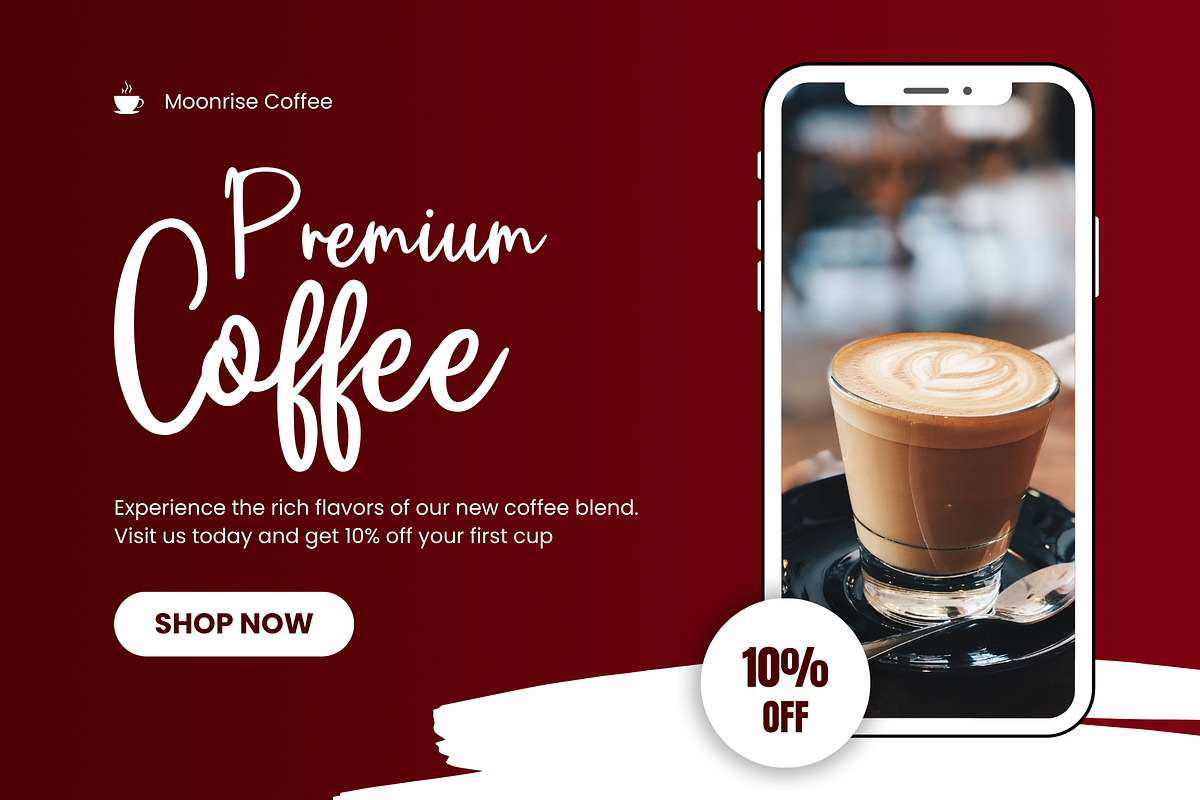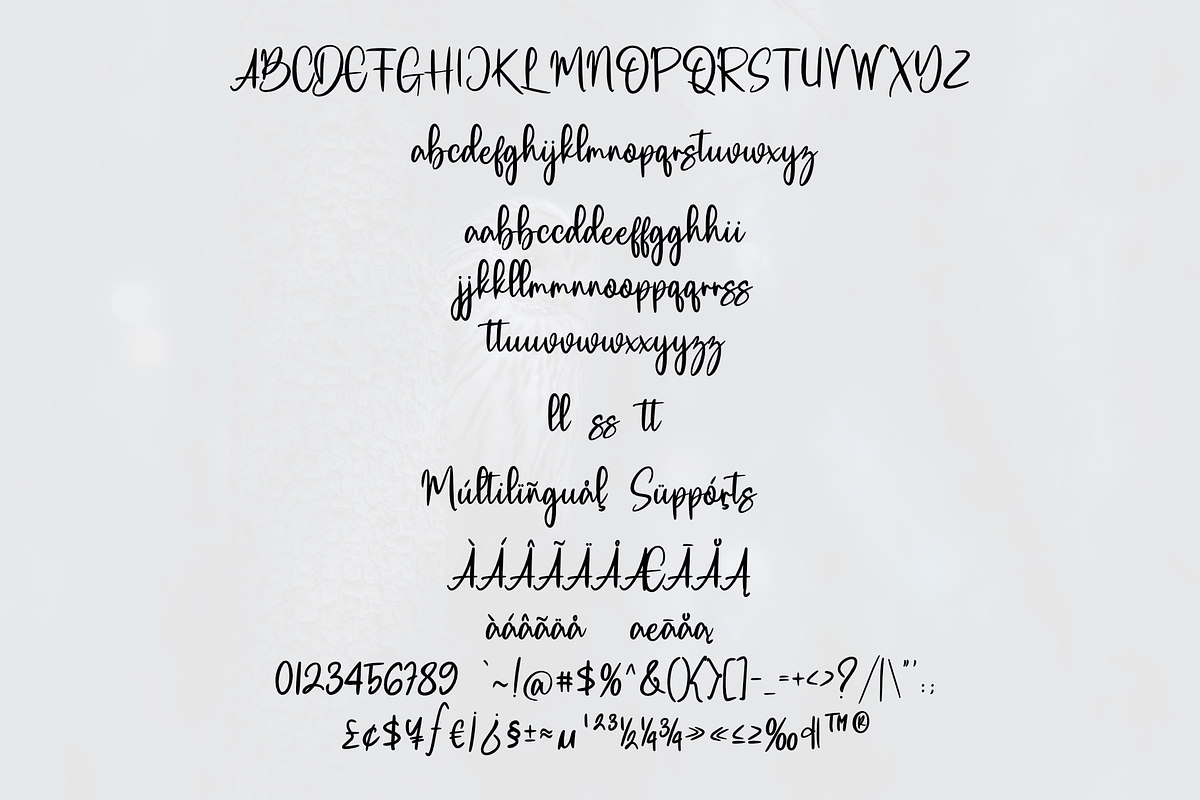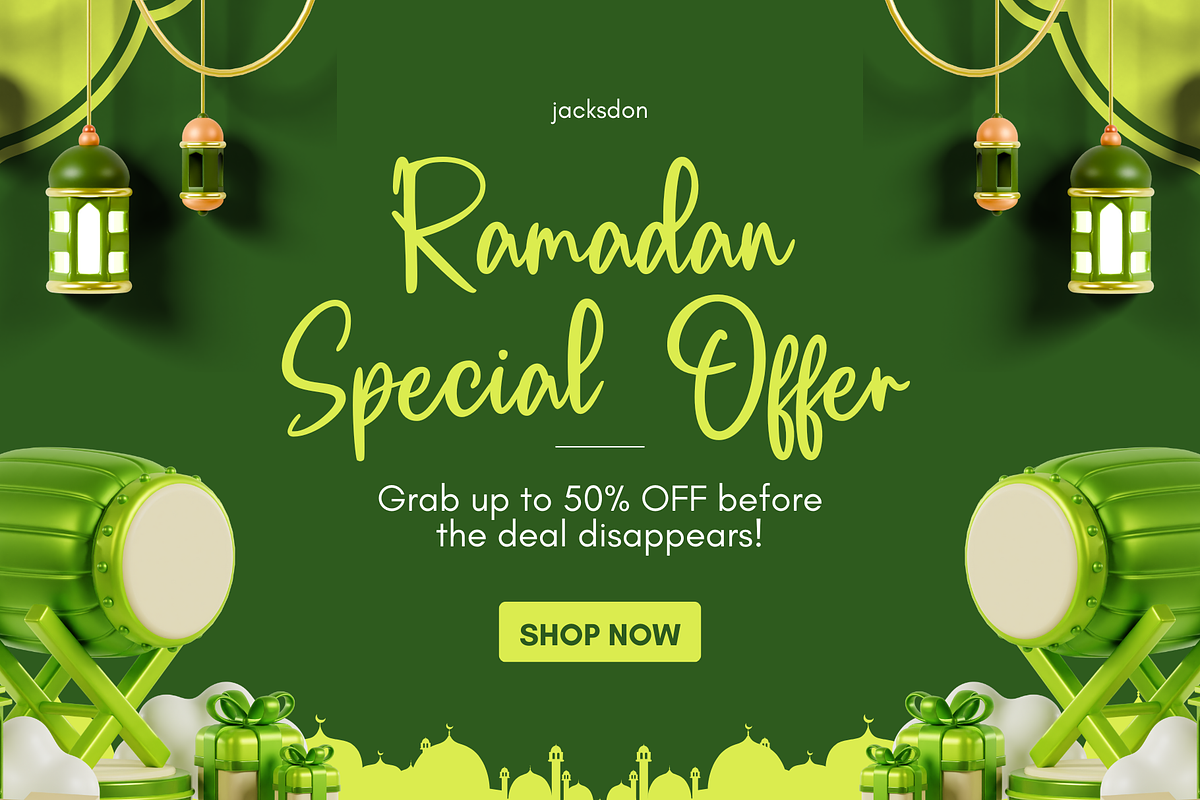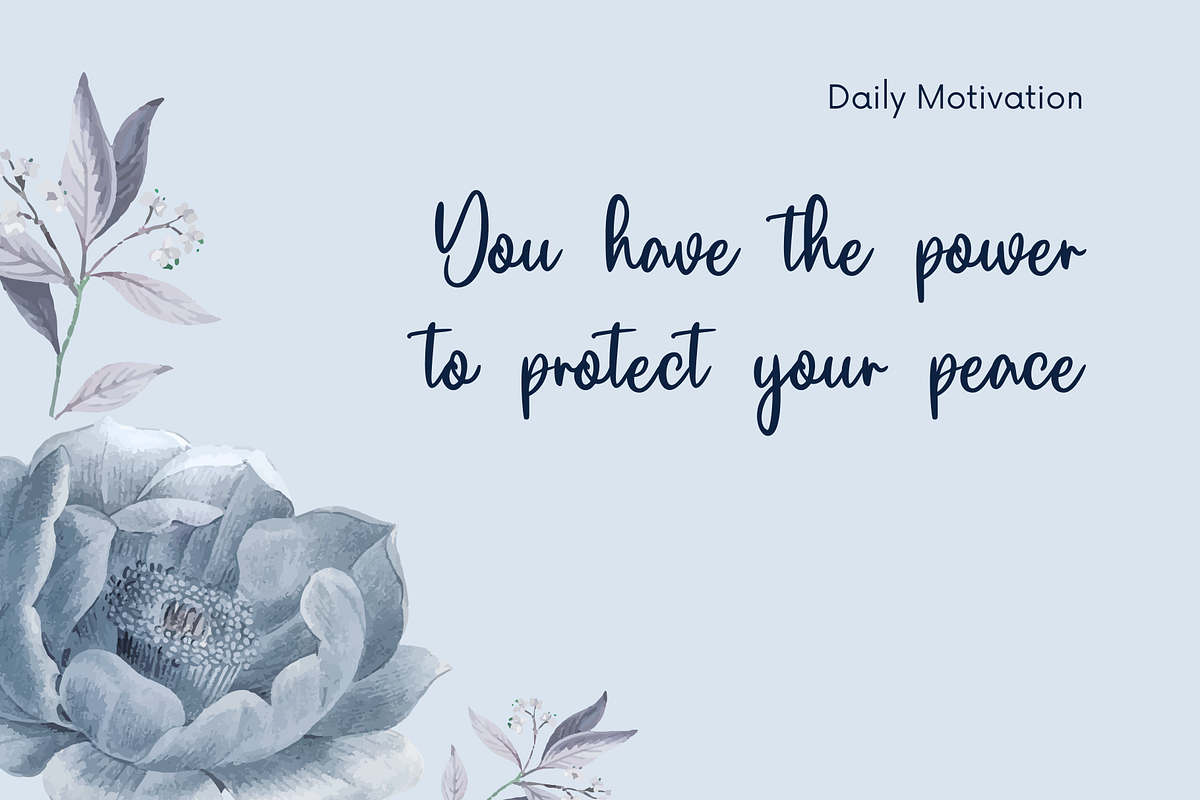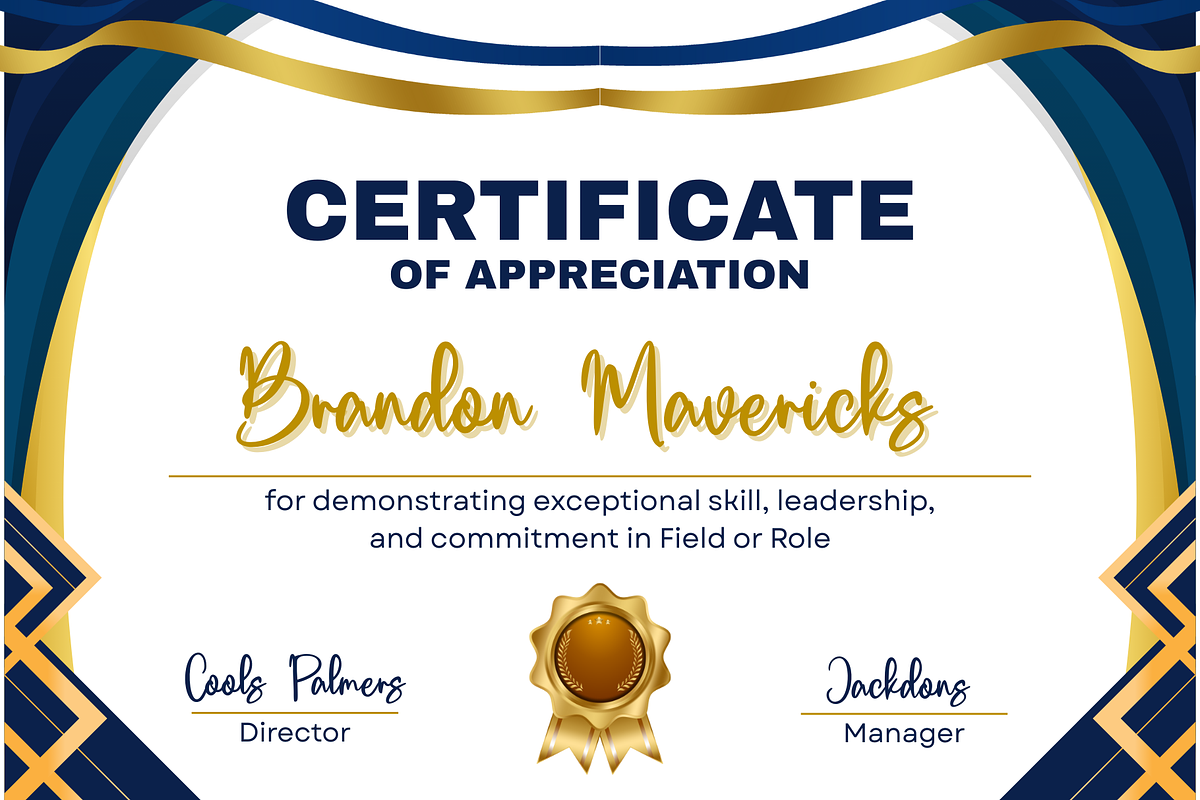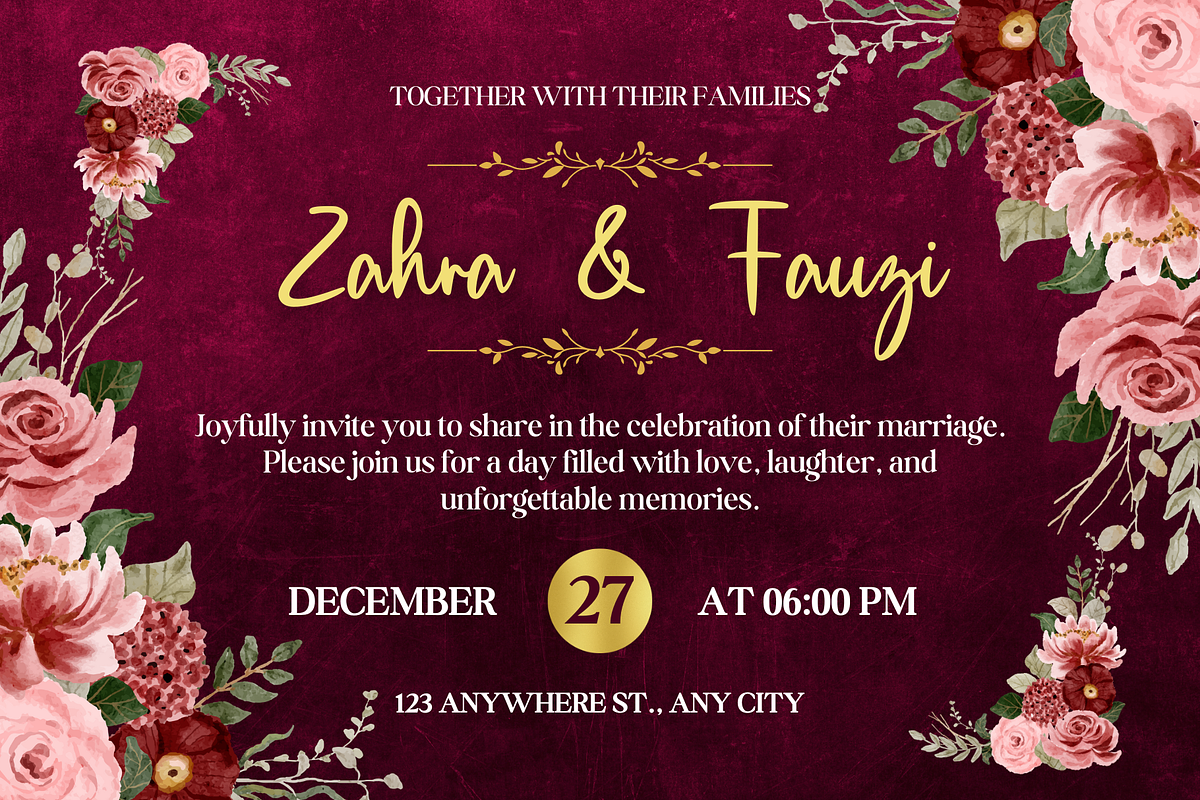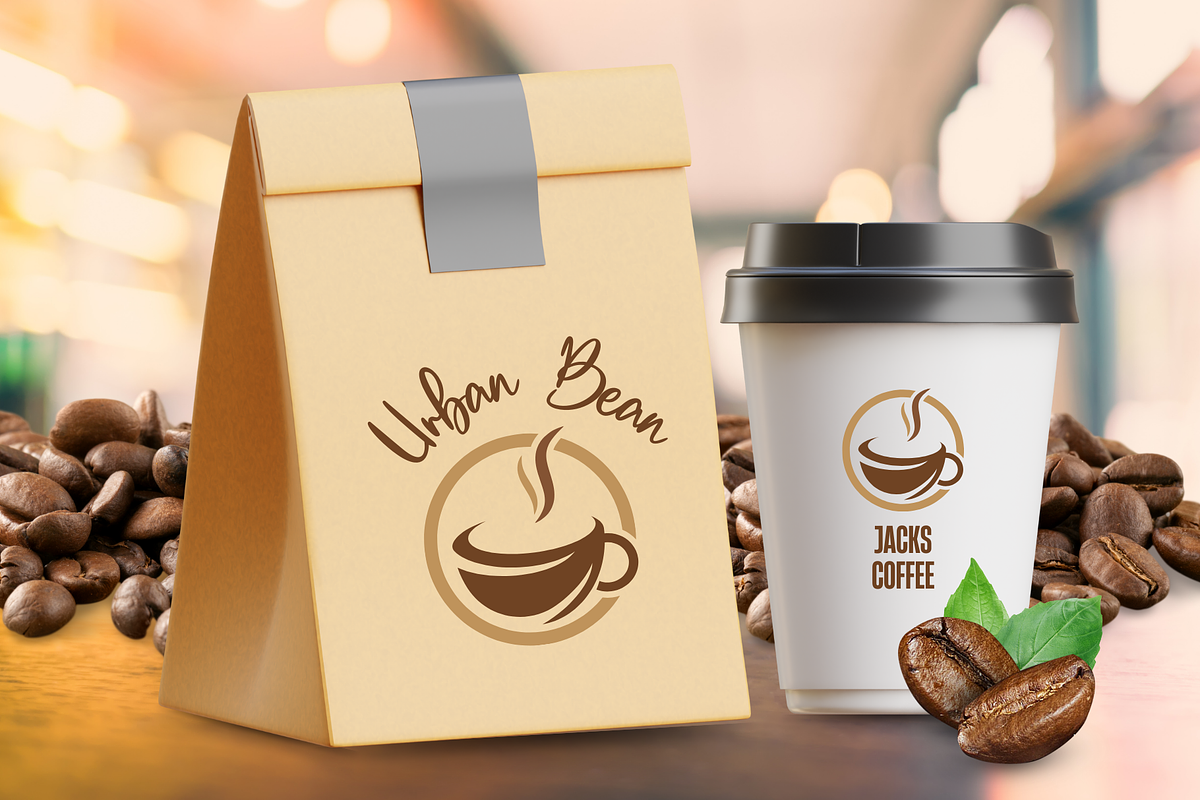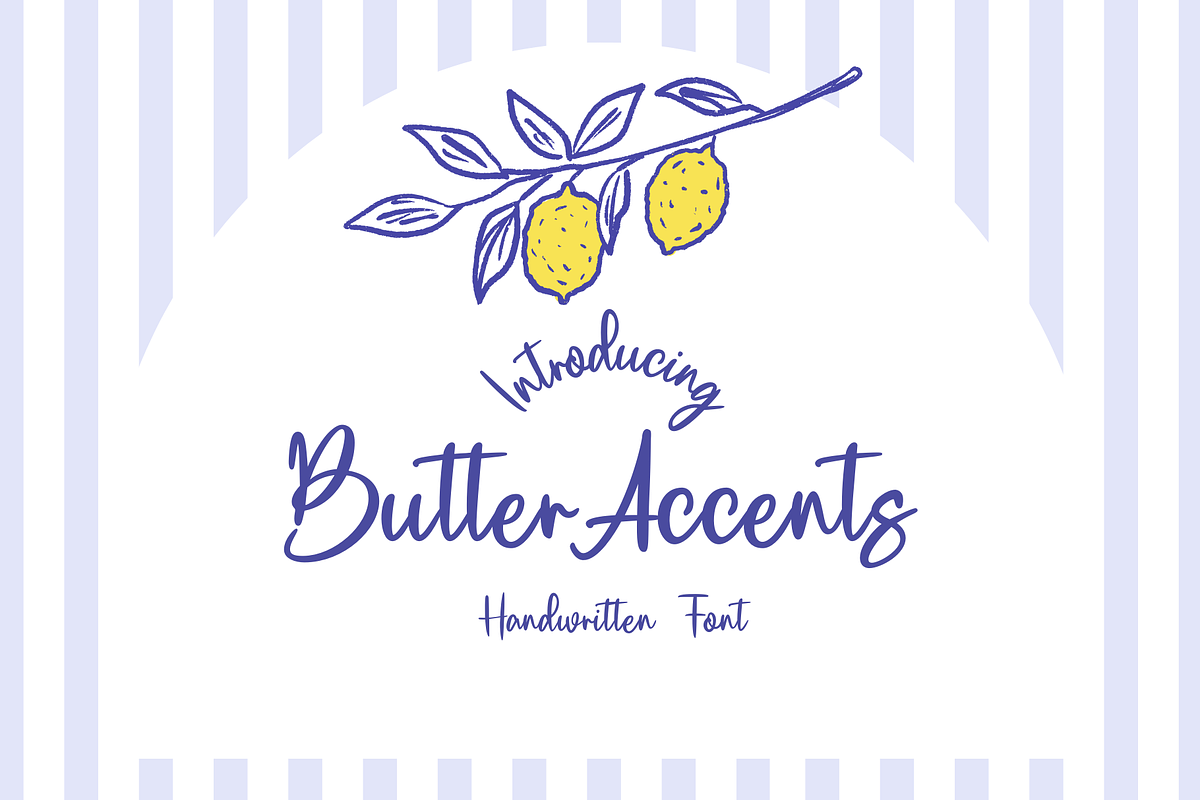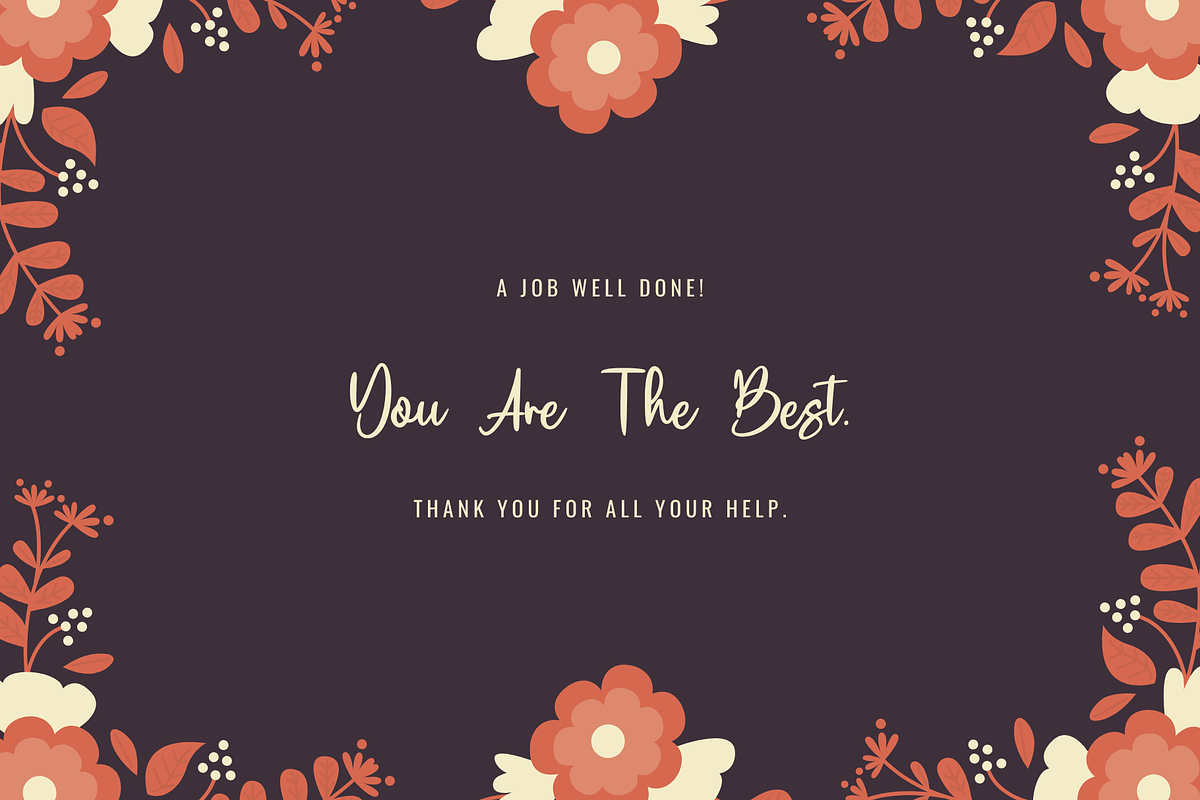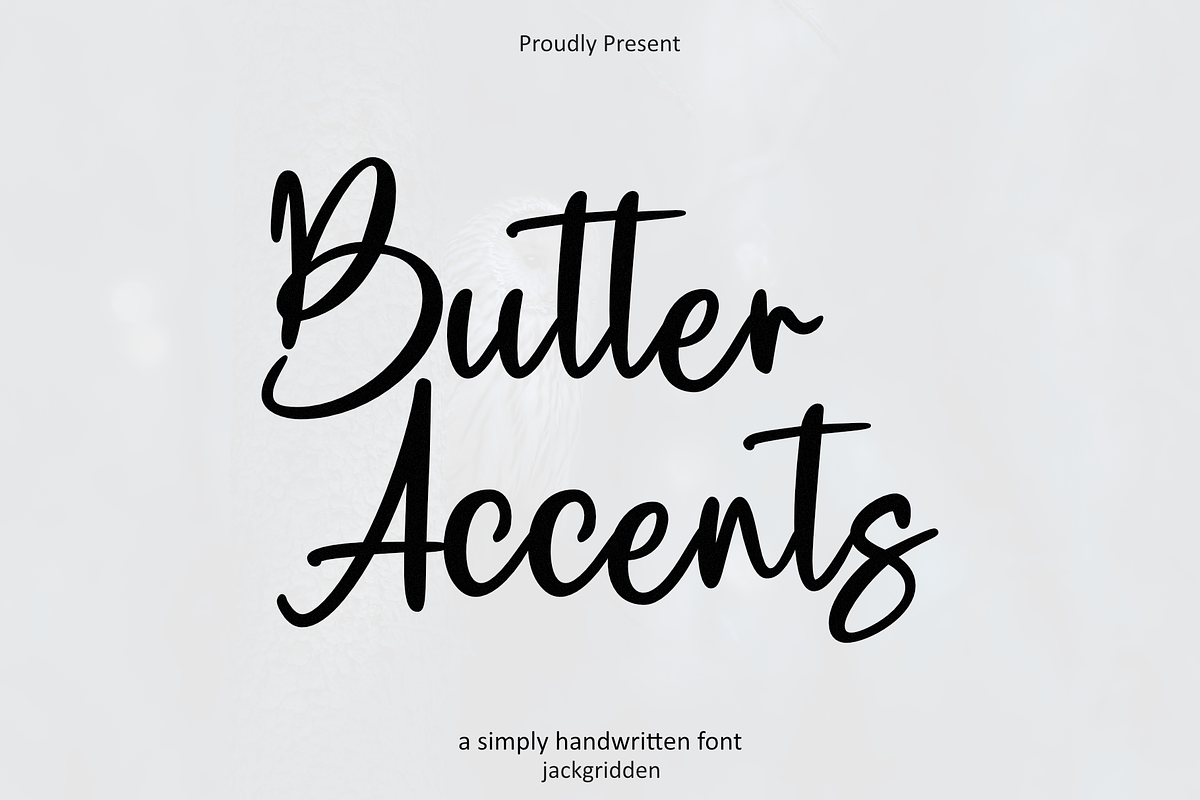
Butter Accents
Butter Accents is a smooth, handwritten font that brings a gentle charm to your designs. With its soft curves and playful strokes, this font adds a personal touch to anything from branding and packaging to greeting cards and social media quotes. Perfectly balanced between casual and elegant, Butter Accents feels like a warm note written by hand — sweet, expressive, and full of character.